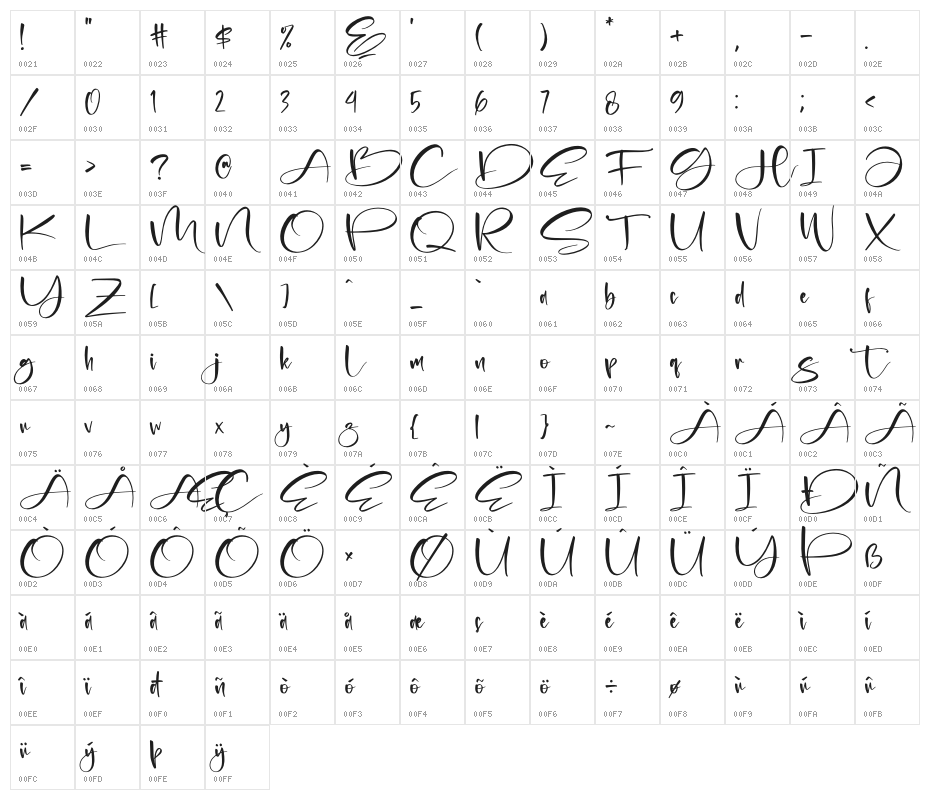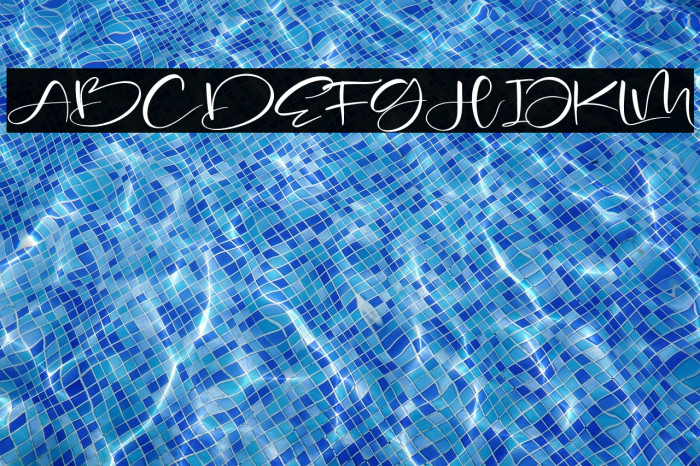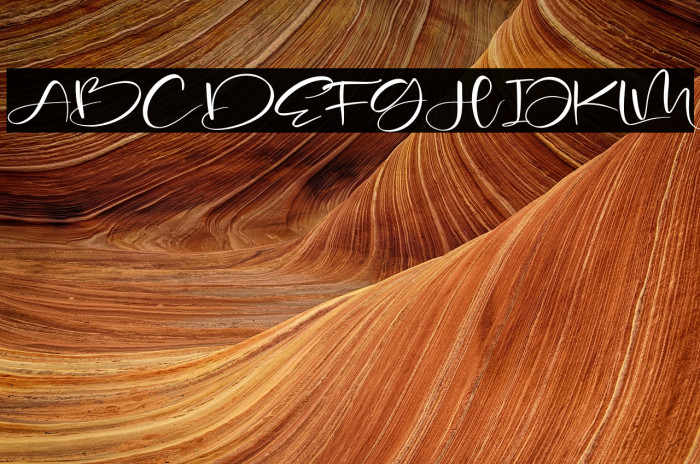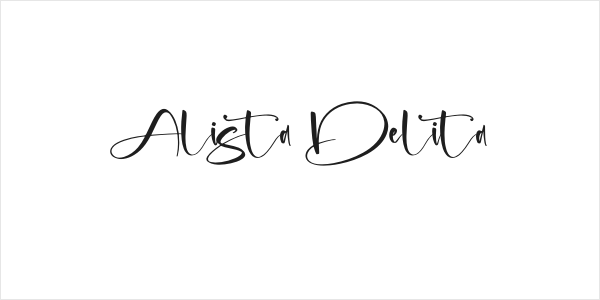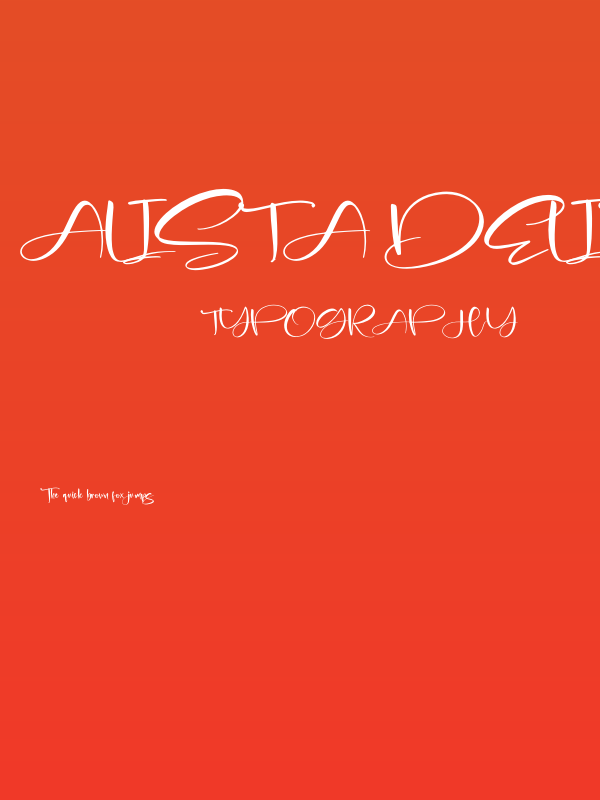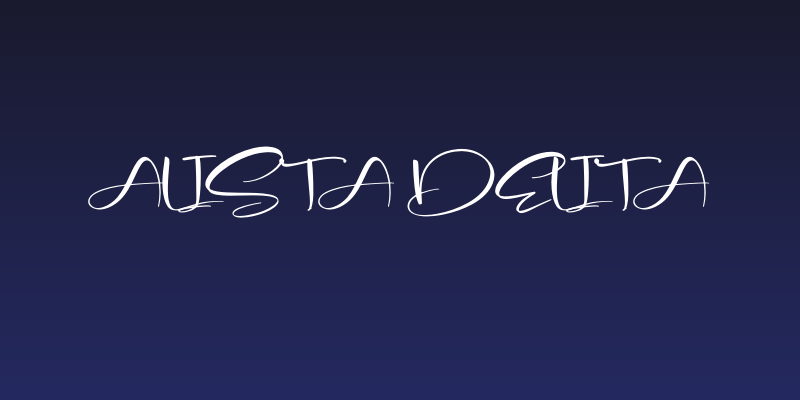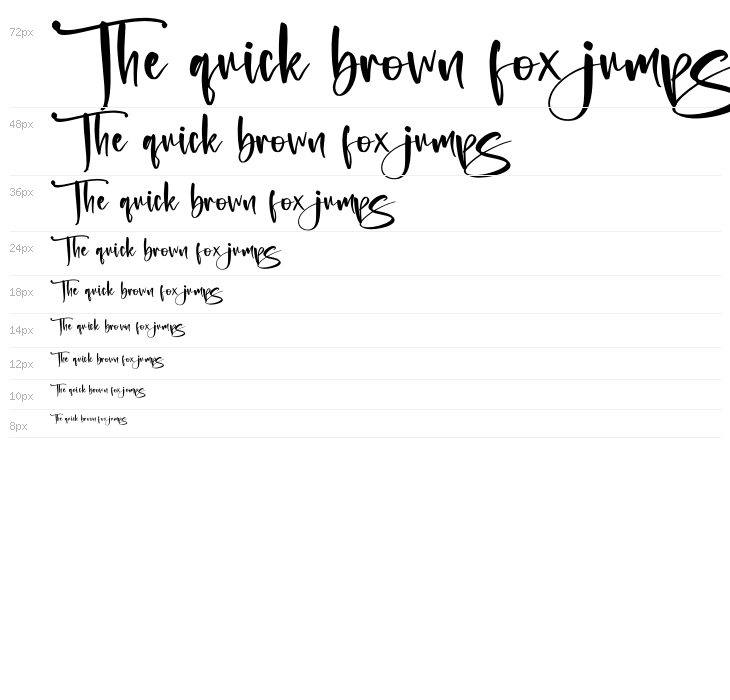
Alista Delita Font
Alista Delita Description
This font features a dynamic and flowing script style, characterized by its elegant and fluid letterforms. The uppercase letters exhibit a graceful, looping structure, while the lowercase letters maintain a consistent, cursive flow. The numerals are designed with a similar flair, adding a touch of sophistication. Special characters are integrated seamlessly, enhancing the font's versatility. The overall appearance is both stylish and artistic, making it suitable for creative and expressive design projects.
| Proposed Projects | Ideal for wedding invitations, branding, greeting cards, and artistic projects requiring a personal touch. |